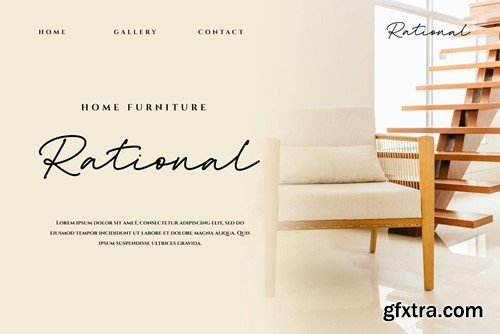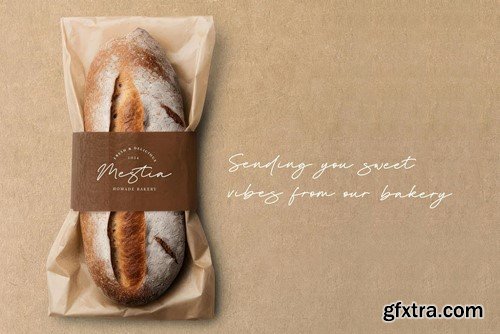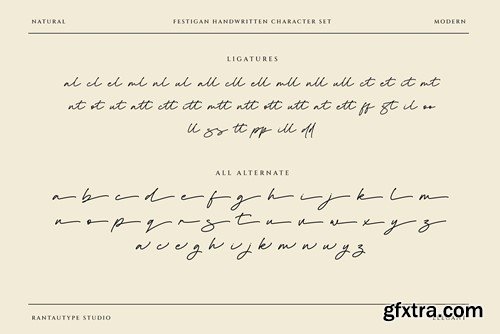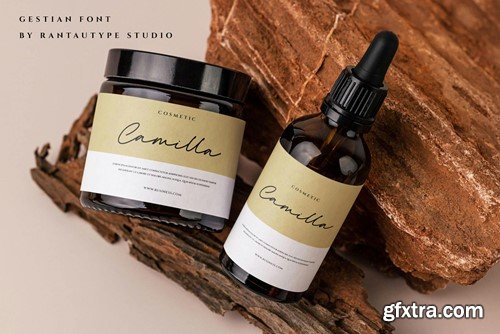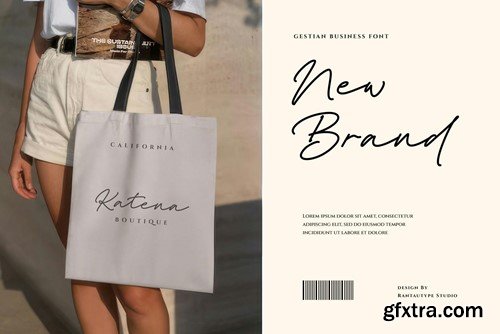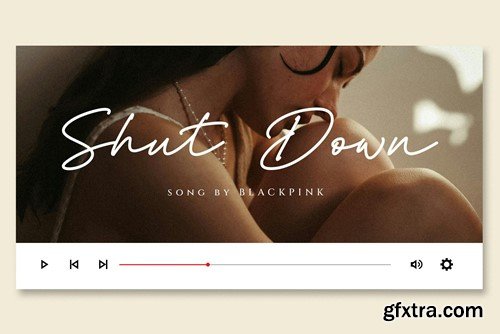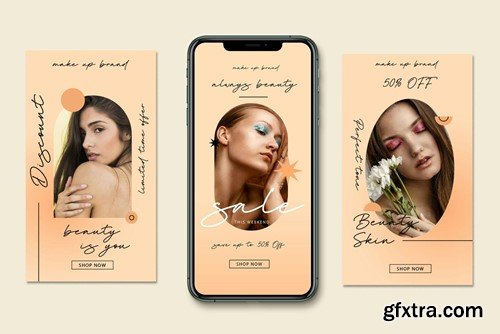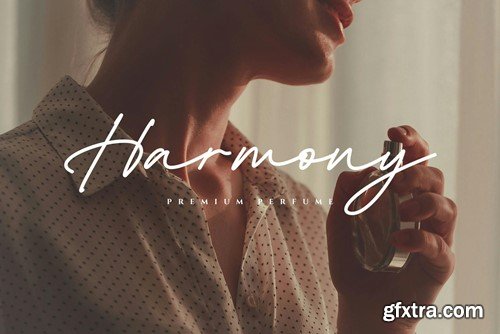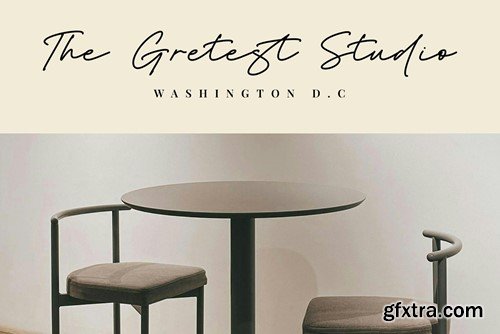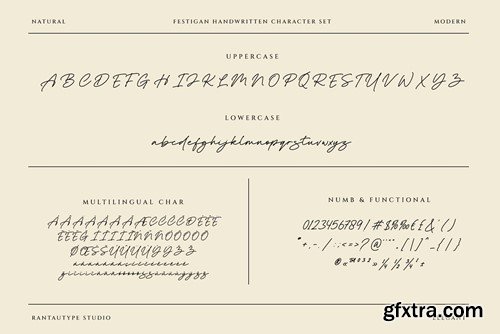
Festigan Business Handwritten Font
Festigan is handwriten font with stylish and casual look. Festigan inspire from high fashion brand make it look elegant. Festigan come with alternate, ligature and multilingual character.
Festigan is perfectly choice for any creative endeavor, chic, lifestyle design such as logos, title, watermark on photography, cover, branding, display and magazine, wedding event, corporate brand, quotes, album cover, business card, business project and many other design project with handwritten taste.
• Standart Gylphs
• Numberial and Functional
• Ligature and alternate